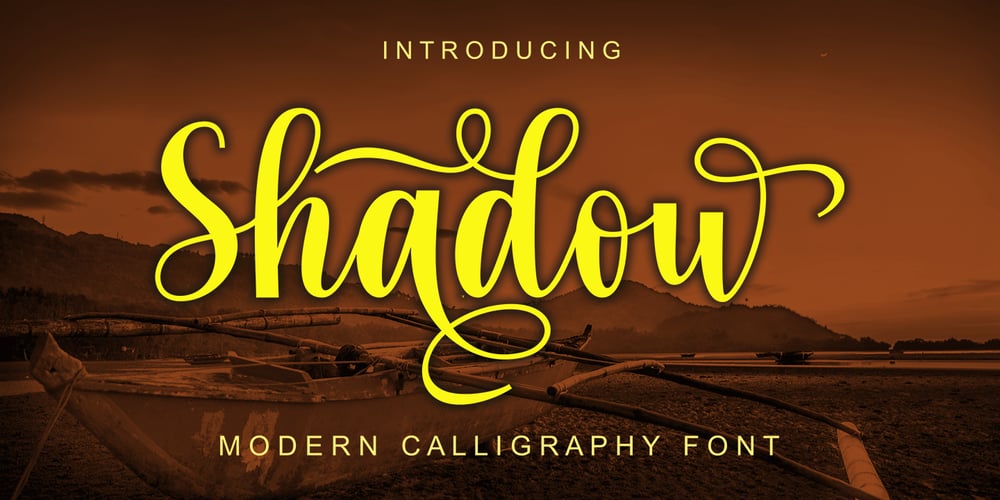
Shadow
Shadow font
Shadow Font Family was designed by khaidir and published by Gatype. Shadow contains 1 styles and family package options. Shadow Script is a modern script calligraphy, dynamic and pretty with swashes. Can used for various purposes. such as the title, signature, logo, wedding invitations, letterhead, signage, labels, newsletters, posters, badges, etc.Shadow Script is coded with PUA Unicode, which allows full access to all the extra characters without having special designing software. Mac users can use Font Book , and Windows users can use Character Map to view and copy any of the extra characters to paste into your favourite text editor/app.Thanks so much for looking and please let me know if you have any questions.